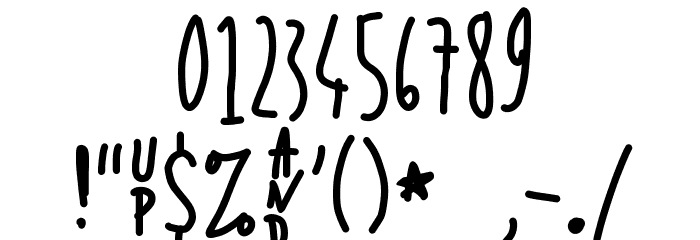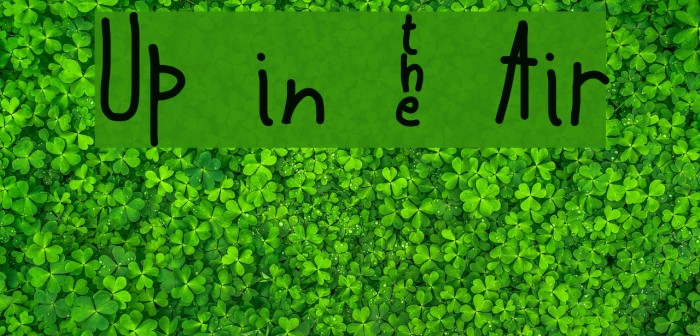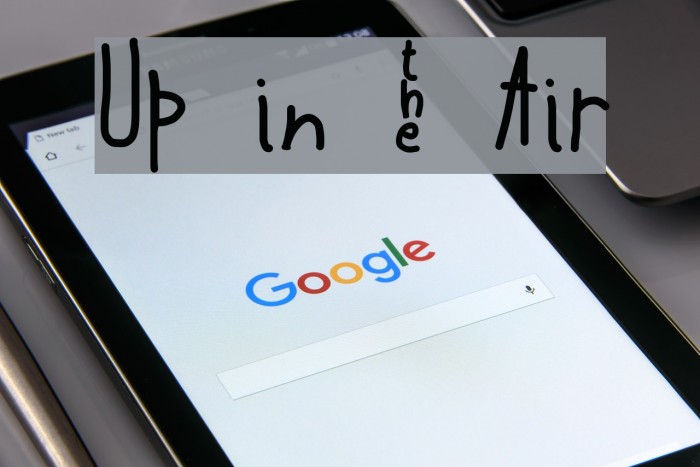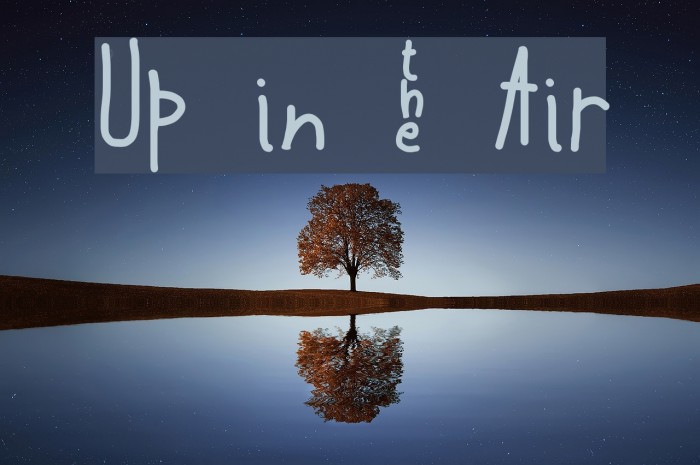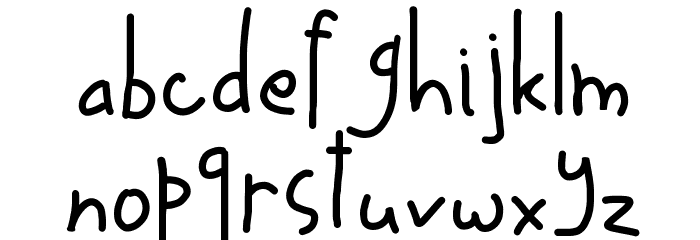
Up in _ Air Font
This font features a playful and whimsical handwritten style, characterized by its irregular and slightly uneven strokes. The letters have a casual, informal appearance, with varying heights and widths that give it a dynamic and lively feel. The uppercase letters are tall and narrow, while the lowercase letters are more rounded and open. The numbers and special characters maintain the same playful aesthetic, making them blend seamlessly with the alphabet. This font exudes a sense of fun and creativity, perfect for projects that require a personal touch.
A playful, handwritten font with irregular strokes and a whimsical style from Handwritten fonts.
- Proposed Projects: Ideal for children's books, greeting cards, playful branding, and creative projects.
- Overall Style: Playful
- Use Case: Headlines, Logos, Creative projects